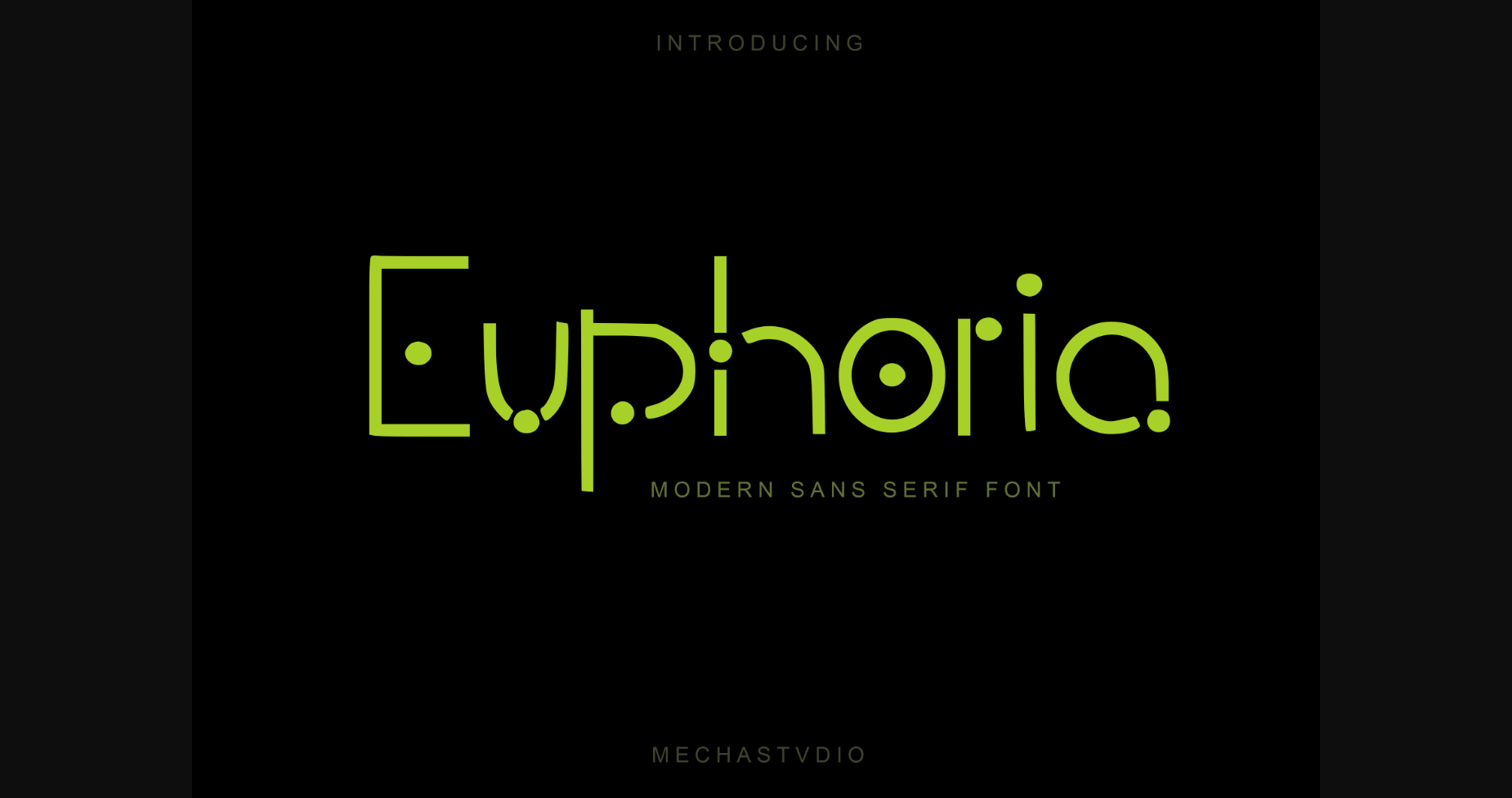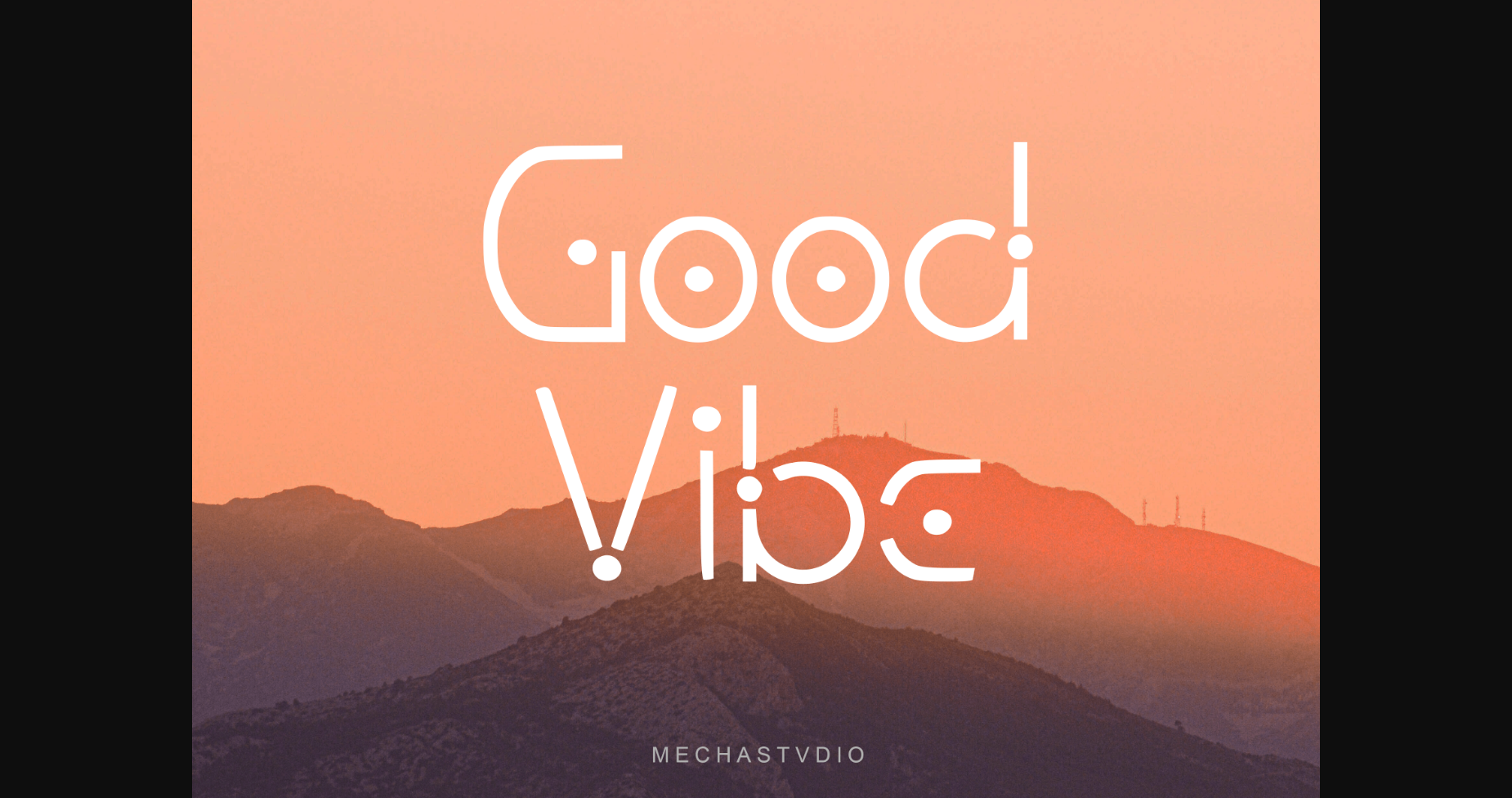
Euphoria Font
About Euphoria Font
Euphoria is a modern, clean, and unique sans serif font. Its unique style is perfect for all your projects as it has the potential to transform them into a true standout.